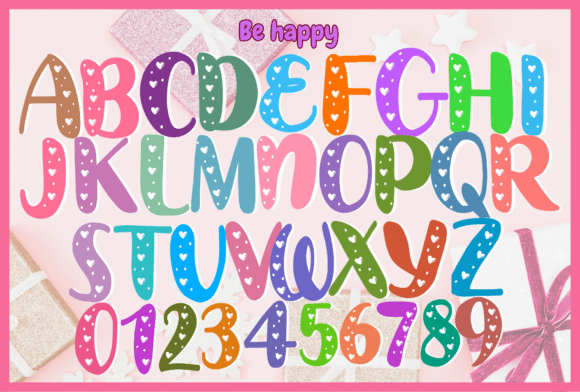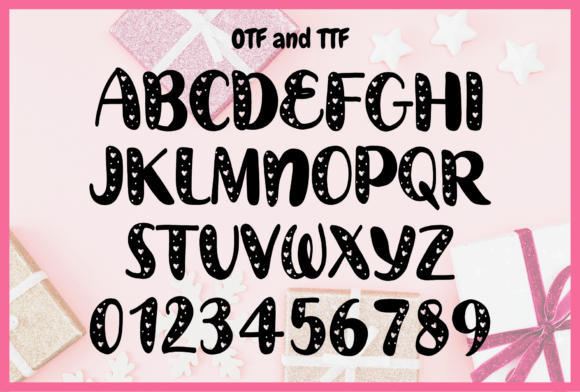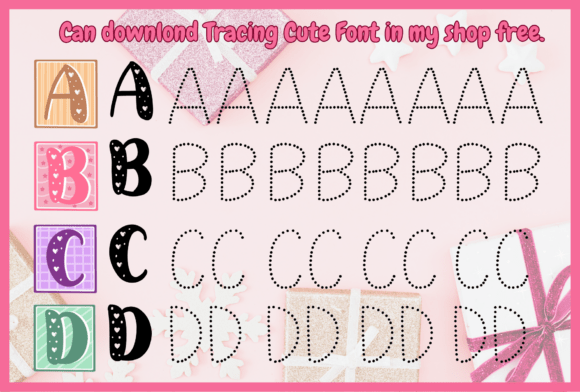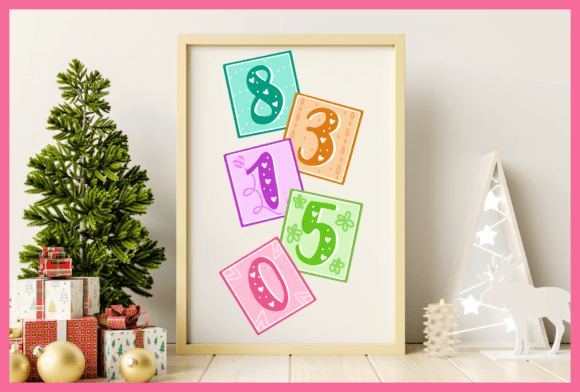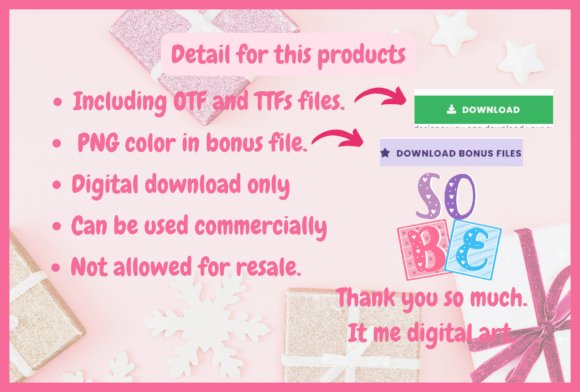
Introducing the Be Happy Cute Heart Font: A Playful Valentine and Kids Alphabet
Are you looking for a font that can add a touch of whimsy and fun to your designs? Look no further than the Be Happy Cute Heart Font! This delightful font is perfect for Valentine’s Day, nursery decor, children’s crafts, and school projects. With its charming little hearts embedded inside the letters, this font is sure to spread joy and creativity in any design.
What Makes the Be Happy Cute Heart Font So Special?
The Be Happy Cute Heart Font is a playfully designed, bubbly display font that features charming little hearts embedded inside the letters. This unique design element makes it absolutely perfect for:
- Valentine’s Day cards and decorations
- Nursery decor and children’s crafts
- School projects and classroom decorations
- Cute t-shirts and personalized mugs
Why Designers and Crafters Love the Be Happy Cute Heart Font
This versatile font pack has everything you need to make your designs pop! Here are just a few reasons why designers and crafters love the Be Happy Cute Heart Font:
- High-quality design: The font features a high-quality design with charming little hearts embedded inside the letters, making it perfect for a variety of design applications.
- Customizable: The font can be customized to fit your design needs, allowing you to adjust the size, color, and style to suit your project.
Ideas for Using the Be Happy Cute Heart Font
The Be Happy Cute Heart Font is a versatile font that can be used in a variety of design applications. Here are a few ideas to get you started:
- Valentine’s Day cards and decorations: Use the Be Happy Cute Heart Font to create adorable Valentine’s Day cards, decorations, and gifts.
- Nursery decor: Add a touch of whimsy to nursery decor with the Be Happy Cute Heart Font. Use it to create wall art, mobiles, and other decorative items.
- Children’s crafts: The Be Happy Cute Heart Font is perfect for children’s crafts, such as making cards, gift tags, and other creative projects.
- School projects: Use the Be Happy Cute Heart Font to create fun and engaging school projects, such as posters, presentations, and reports.
- Cute t-shirts and personalized mugs: Create adorable t-shirts and personalized mugs with the Be Happy Cute Heart Font.
Tips for Getting the Most Out of the Be Happy Cute Heart Font
Here are a few tips for getting the most out of the Be Happy Cute Heart Font:
- Experiment with different colors: Try out different colors and color combinations to add a unique touch to your designs.
- Mix and match with other fonts: Combine the Be Happy Cute Heart Font with other fonts to create a unique and eye-catching design.
- Use it for a variety of design applications: Don’t be afraid to think outside the box and use the Be Happy Cute Heart Font for a variety of design applications, such as social media graphics, blog posts, and more.
The Be Happy Cute Heart Font is a playful and versatile font that is perfect for designers and crafters who want to add a touch of whimsy and fun to their designs. With its charming little hearts embedded inside the letters, this font is sure to spread joy and creativity in any design. Whether you’re creating Valentine’s Day cards, nursery decor, children’s crafts, or school projects, the Be Happy Cute Heart Font is the perfect choice.